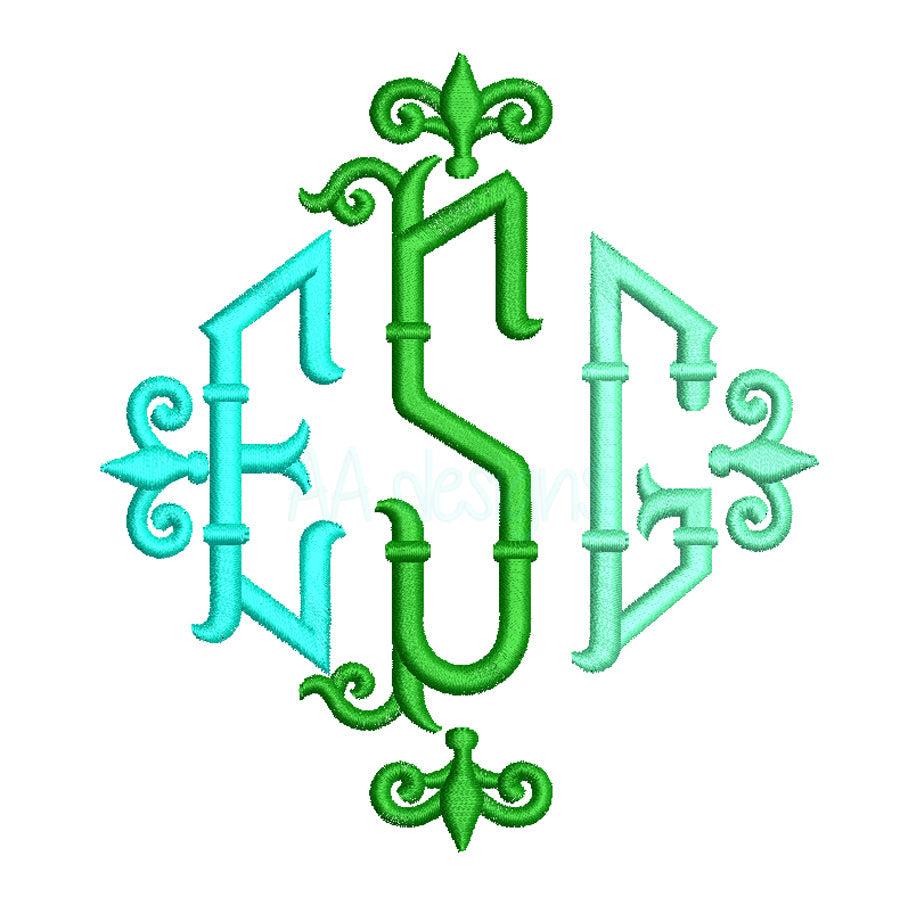
Circle vs Script Monogram Fonts: Which One to Choose?
The Two Most Popular Monogram Styles
When it comes to monogram embroidery, two styles dominate: Circle Monogram and Script Monogram. Both are beautiful, but they serve different purposes and suit different projects. Here's how to choose the right one for your needs.
Circle Monogram Fonts
Circle monograms arrange letters in a circular or structured frame, giving a bold, classic look. The center letter (typically the last name initial) is larger, flanked by the first and middle initials on either side.
Best For:
- Towels, robes, and home linens
- Sports bags and backpacks
- Corporate or branded gifts
- Items where bold visibility matters
Key Characteristics:
- Clean, structured, and symmetrical
- Easy to read from a distance
- Works well on thick fabrics like terry cloth and canvas
- Timeless and gender-neutral
Script Monogram Fonts
Script monograms use flowing, cursive letterforms that feel elegant and personal. They range from simple connected scripts to elaborate decorative styles with swashes and flourishes.
Best For:
- Wedding gifts and bridal items
- Women's apparel and accessories
- Baby gifts and nursery items
- Luxury or boutique products
Key Characteristics:
- Elegant, feminine, and romantic
- Works best on smooth, flat fabrics
- More intricate — requires good digitizing quality
- Highly customizable in size and thread color
Decorative Monogram Fonts
Looking for something truly unique? Decorative monograms like the Fleur-de-lis Monogram combine classic letterforms with ornate decorative elements — perfect for special occasions and heirloom gifts.
Side-by-Side Comparison
| Circle Monogram | Script Monogram | |
|---|---|---|
| Style | Bold, structured | Elegant, flowing |
| Best fabric | Terry cloth, canvas, denim | Cotton, silk, linen |
| Occasion | Everyday, corporate, sports | Wedding, baby, luxury |
| Visibility | High contrast, easy to read | Decorative, artistic |
| Gender | Neutral | Often feminine |